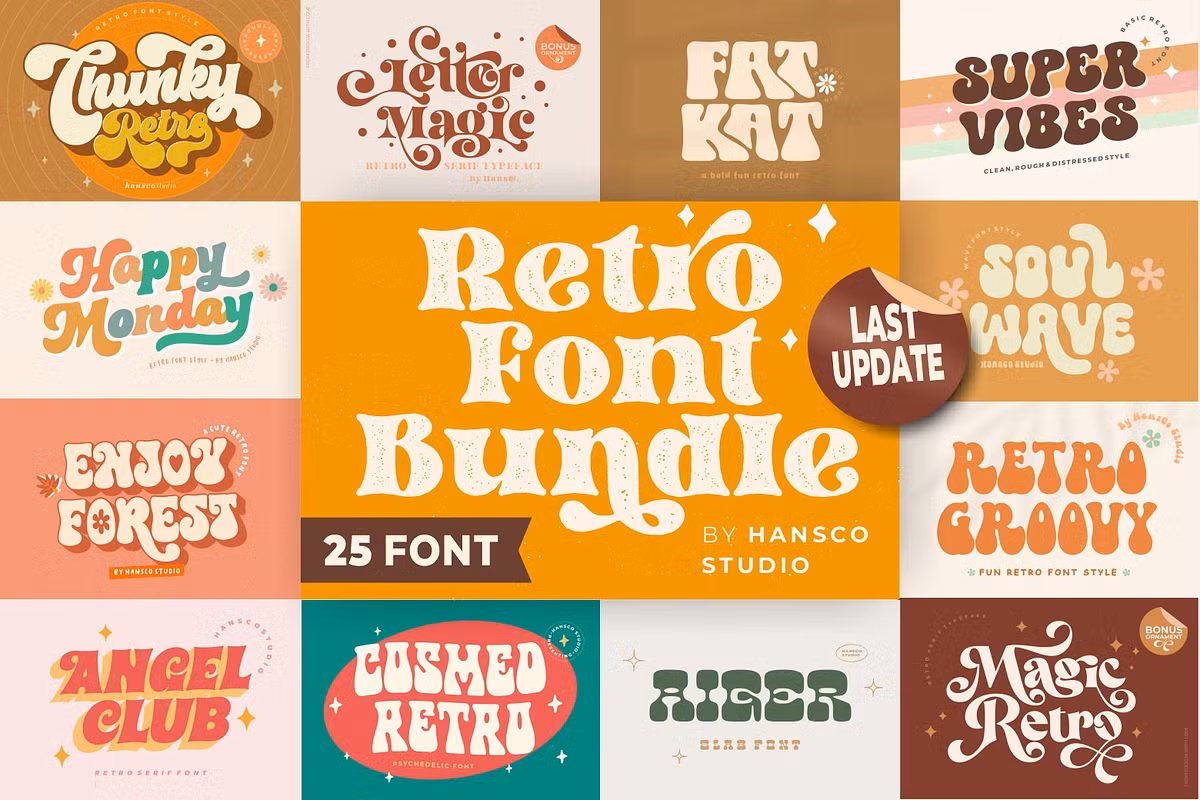
Modern Retro Font Bundle Free Download is a carefully curated collection of typefaces that bring a nostalgic yet contemporary twist to your designs. Featuring a variety of fonts with vintage-inspired letterforms, this bundle is perfect for creating retro logos, posters, branding materials, and more. Whether you’re designing for a retro-themed event, creating a fun product packaging design, or crafting social media graphics, these fonts will add personality and flair to your work. The Modern Retro Font Bundle Free Download gives you the chance to experiment with different retro styles in personal projects before purchasing a commercial license. Bring a vibrant, nostalgic vibe to your designs with this versatile and stylish font bundle.